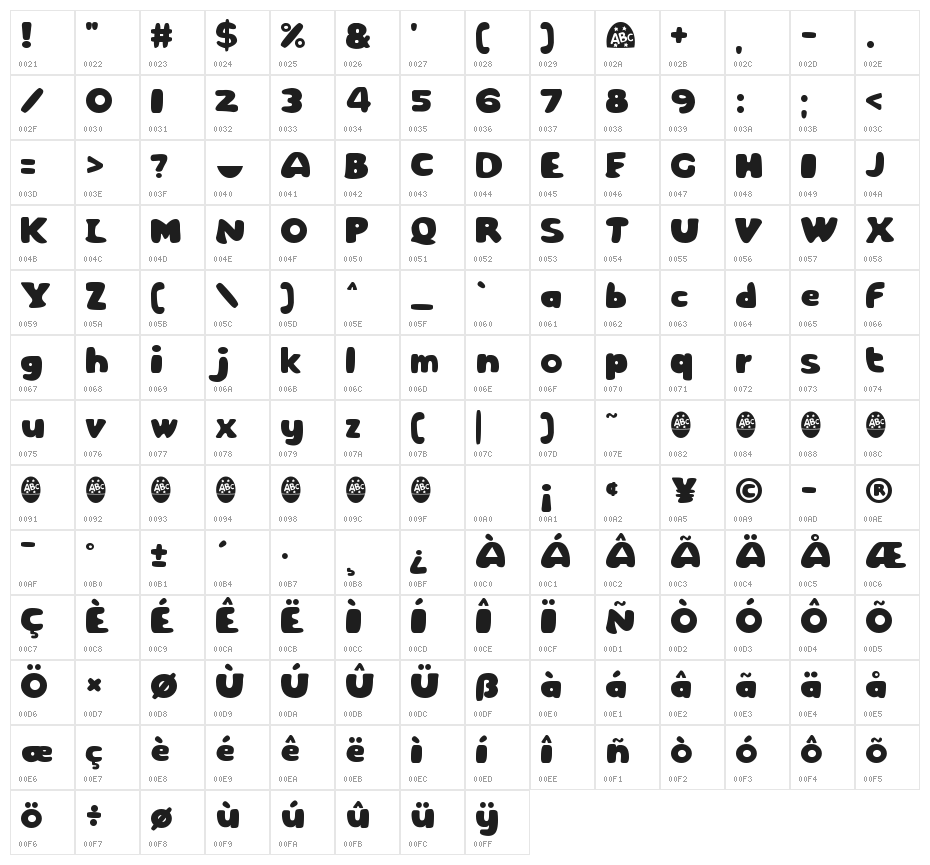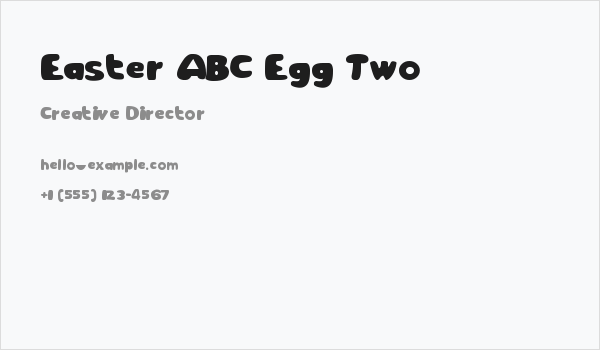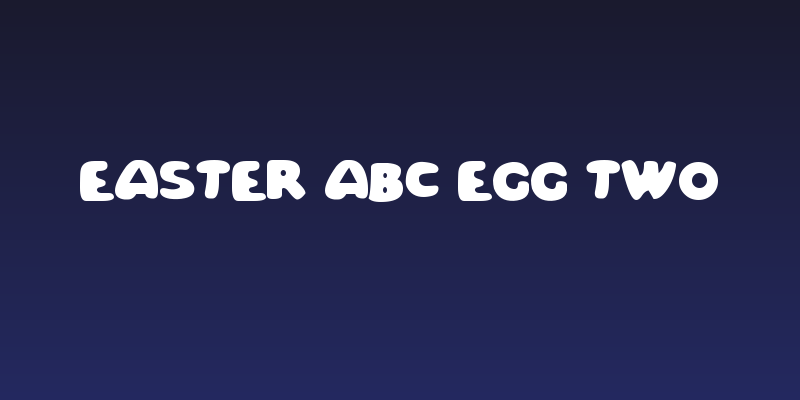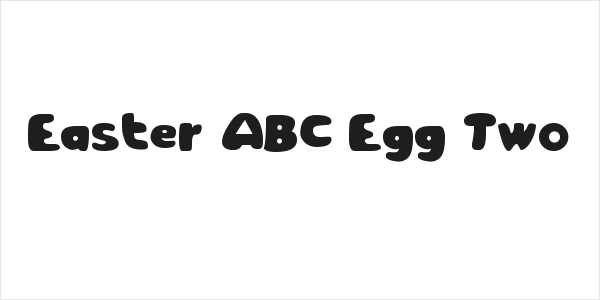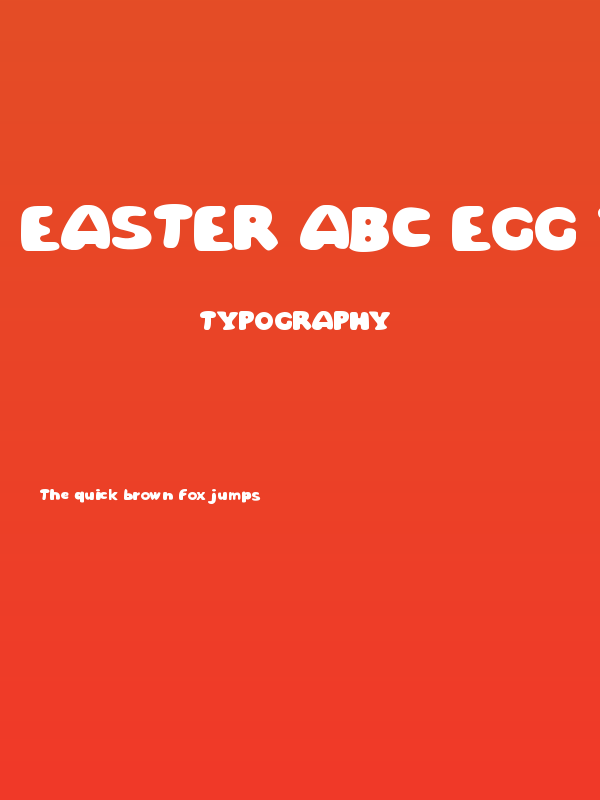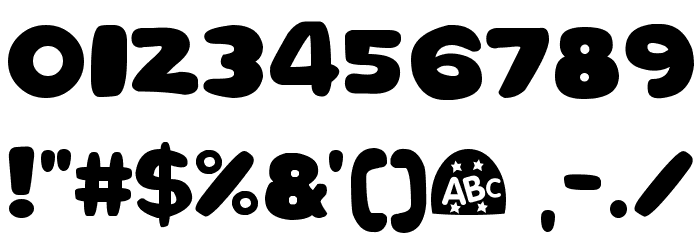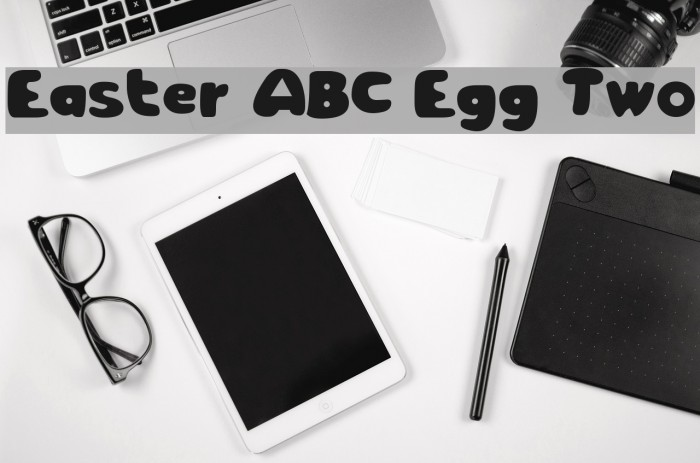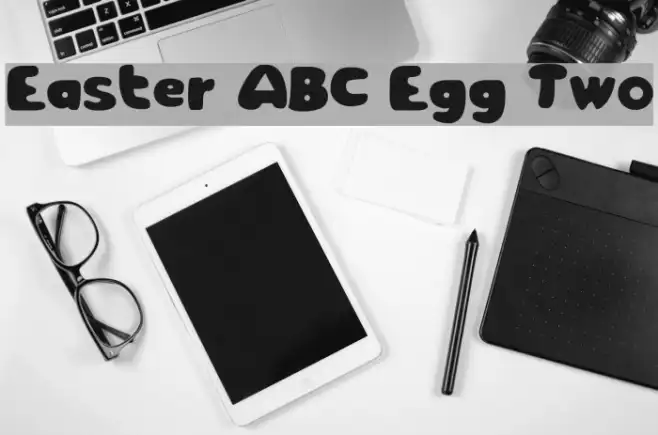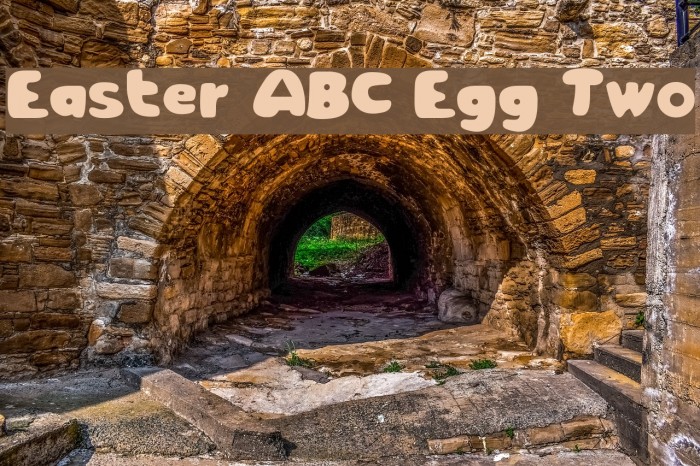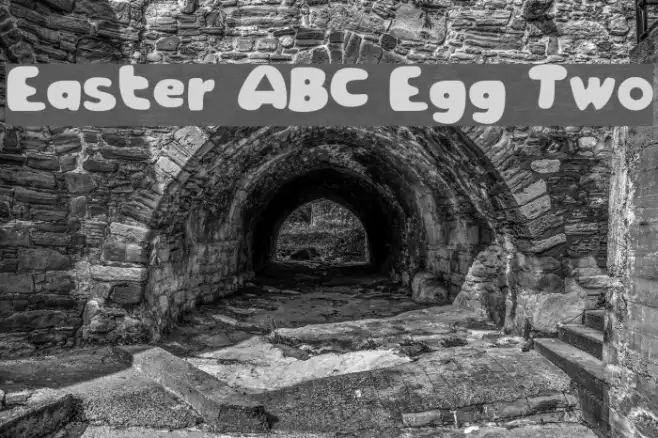
Easter ABC Egg Two Font
Easter ABC Egg Two Description
This playful and bold font features rounded, bubble-like characters that evoke a sense of fun and whimsy. The letters are thick and have a uniform stroke width, giving them a solid and substantial appearance. The style is reminiscent of hand-drawn lettering, with a slightly irregular shape that adds to its charm. The font includes both uppercase and lowercase letters, numerals, and a variety of special characters. Its unique design makes it stand out, making it ideal for creative and informal projects.
| Proposed Projects | Ideal for children's books, party invitations, playful branding, and any project needing a fun, informal touch. |